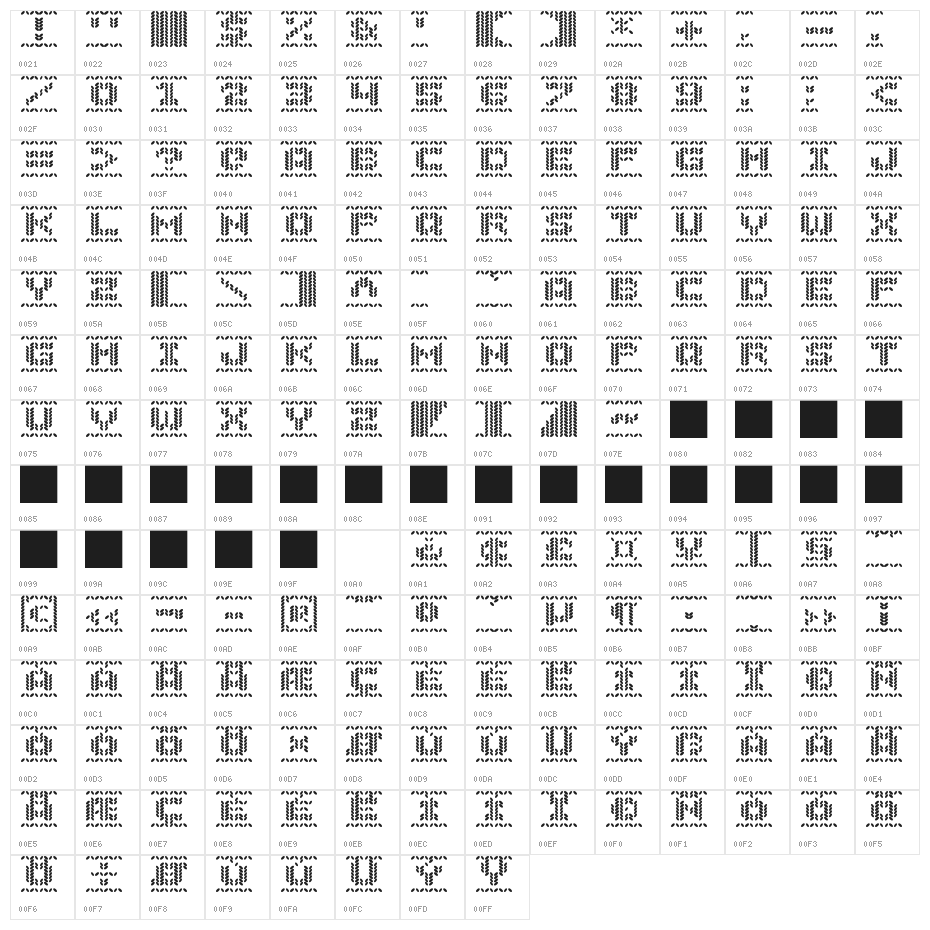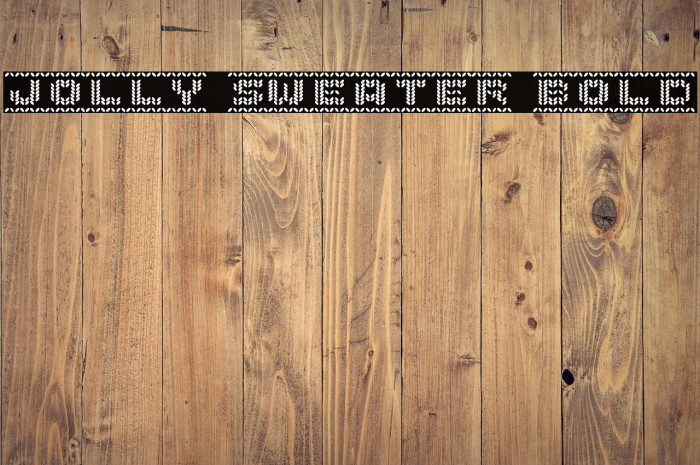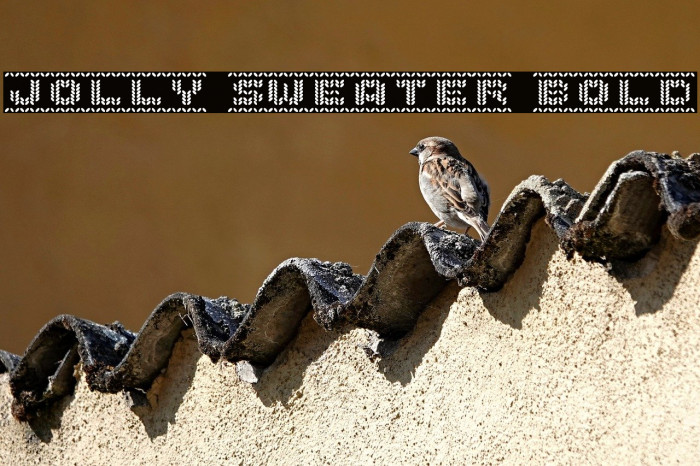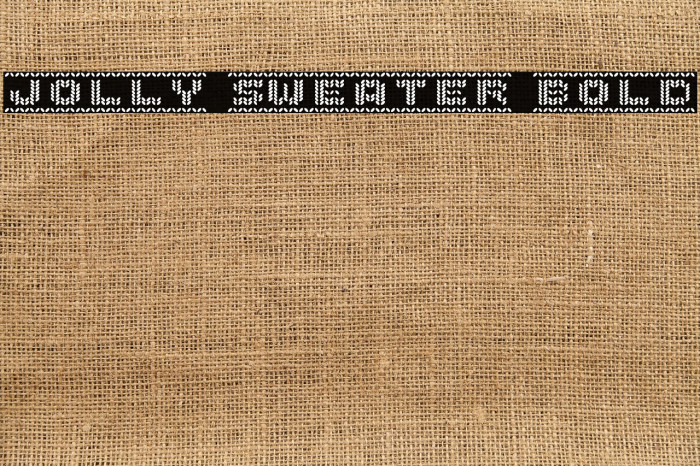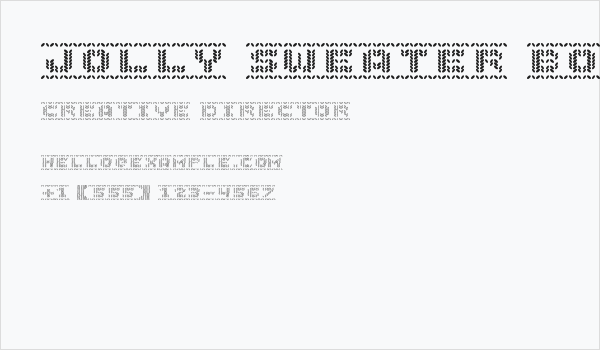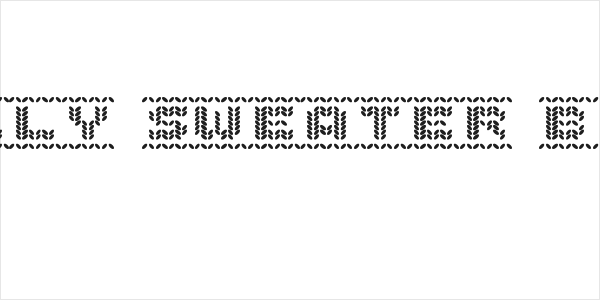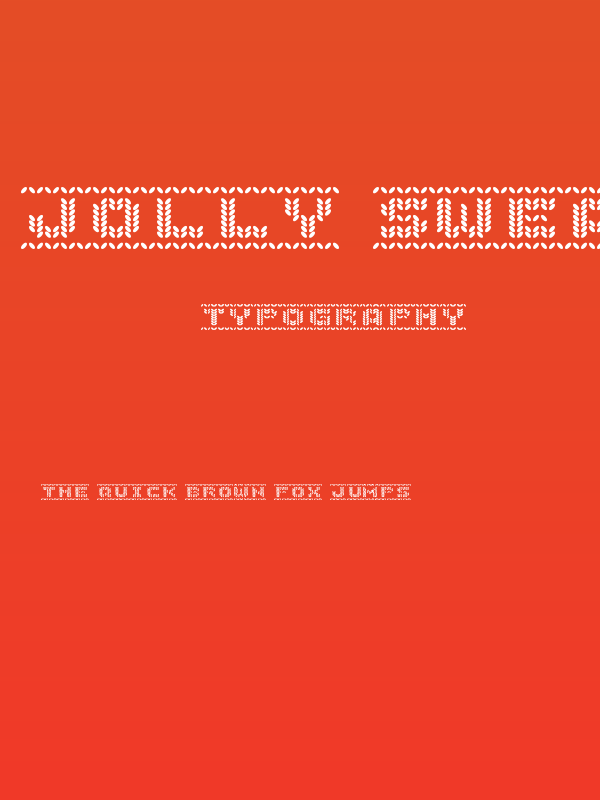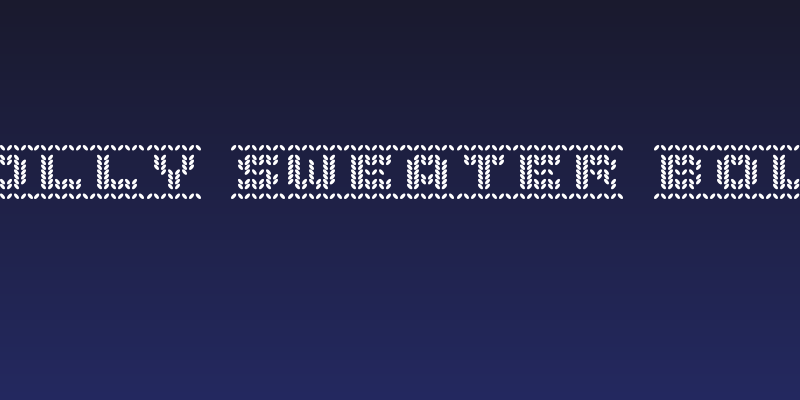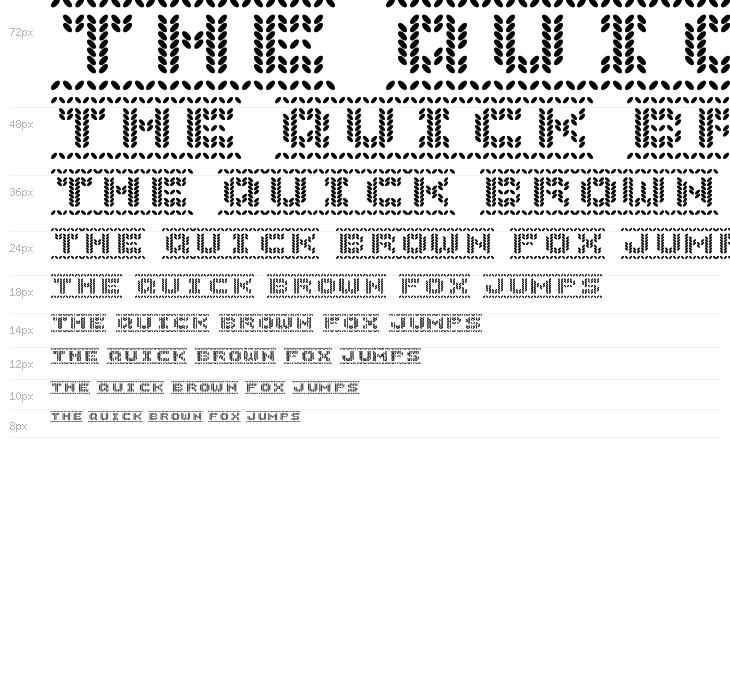
Jolly Sweater Bold Font
Jolly Sweater Bold Description
This font features a playful and festive design reminiscent of knitted patterns, often associated with cozy winter sweaters. The characters are constructed using a series of small, repetitive shapes that mimic the appearance of stitches, giving it a textured and tactile feel. The uppercase and lowercase letters are consistent in style, maintaining a uniform look across the alphabet. Numbers and special characters follow the same knitted theme, ensuring a cohesive appearance throughout. This font is ideal for designs that aim to evoke warmth, nostalgia, and a sense of holiday cheer.
| Use Case | Headlines, Logos, Holiday-themed projects |
| Proposed Projects | Ideal for holiday cards, festive banners, winter-themed invitations, and cozy apparel branding. |